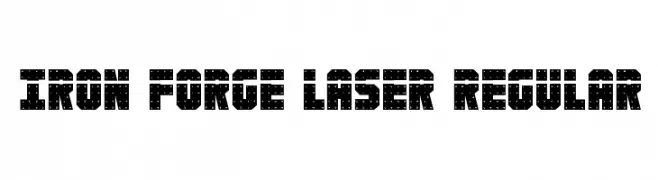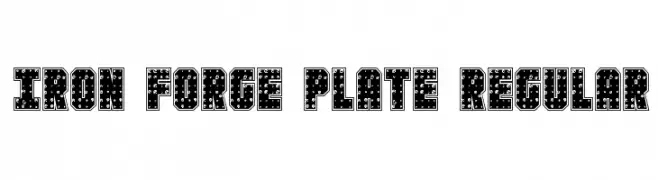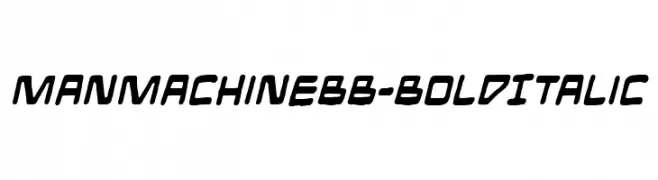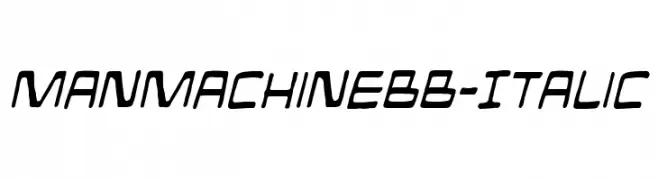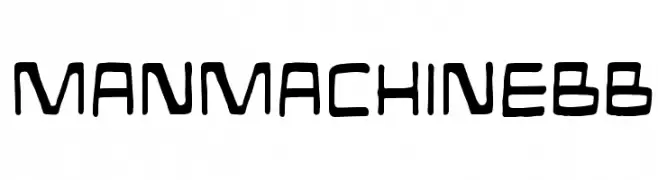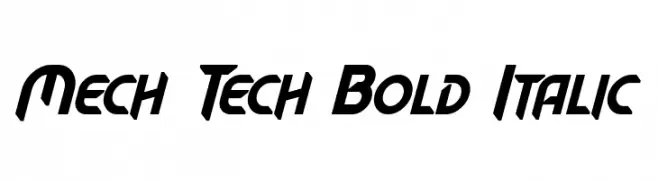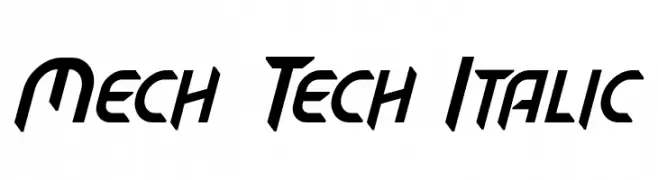
A bold, italicized font with a futuristic and mechanical design.
A bold, geometric font with a futuristic and mechanical style.
A futuristic, italicized font with a mechanical and precise design.
A bold, industrial font with a rugged, dotted texture and expanded width.
A bold, industrial font with a laser-cut, mechanical appearance.
A bold, industrial font with a metallic, riveted design.
A bold, italic, industrial-style font with a riveted metal plate design.
A futuristic, condensed font with rounded edges and a mechanical aesthetic.
A bold, italicized font with a futuristic, mechanical style.
A futuristic, italic font with sharp angles and a mechanical style.